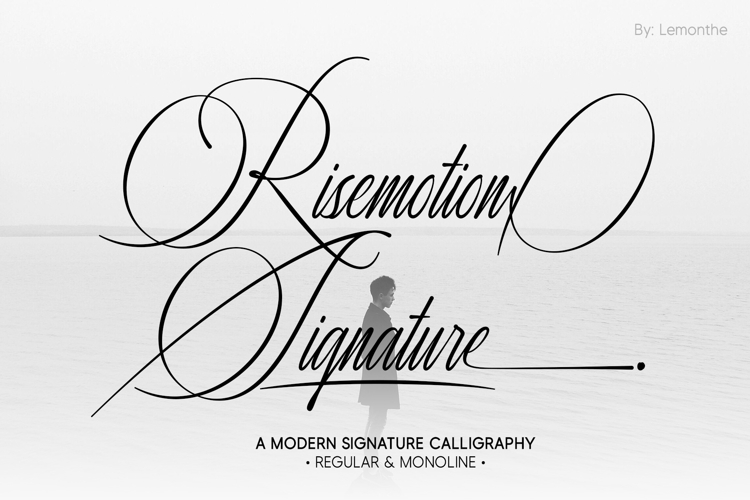
Risemotion Signature is a modern signature calligraphy font built with controlled letterforms, balanced stroke contrast, and consistent spacing. The font is designed to maintain readability and visual structure while supporting connected letterforms and decorative elements in a stable manner. Its construction allows flexible use across various design contexts, including branding, logos, wedding materials, editorial layouts, packaging, and digital graphics. Risemotion Signature provides a functional and consistent signature-style lettering solution suitable for professional design needs.